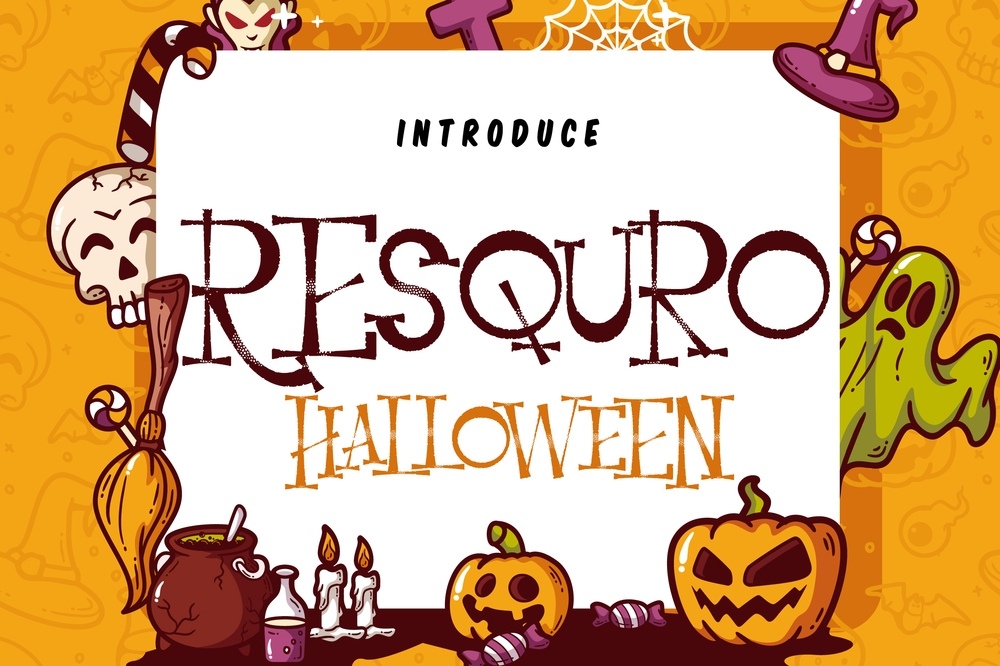
Resquro Halloween Font
This mysterious font is perfect for Halloween horror movies, dark gothic decorations, sinister Halloween parties, eerie haunted attractions, spooky thriller posters, macabre Halloween branding, ominous seasonal signage, frightening Halloween events, menacing horror displays, and darkly atmospheric Halloween messaging materials.
Resquro Halloween Font is exciting because it embodies the dark sophistication and chilling elegance of contemporary horror through its menacingly crafted letterforms that capture the refined terror and psychological intensity of modern Halloween celebrations. The font features sharp, angular characters with gothic influences and sinister details that evoke the atmospheric dread of premium horror experiences, incorporating jagged edges and ominous flourishes that create typography as unsettling and compelling as the best psychological thrillers. Each letter showcases the calculated precision and deliberate menace that distinguishes sophisticated horror from simple scares, with razor-sharp proportions and darkly elegant accents that transform ordinary text into instruments of controlled terror. The design perfectly captures the evolution of Halloween from childish fun to sophisticated fright, creating typography that appeals to mature audiences seeking genuinely spine-chilling experiences that combine artistry with authentic fear.
The Resquro Halloween Font family includes horror-inspired variations: Regular, Bold, Light, Gothic, and Sinister versions. The collection features special dark elements including blade-like accents, shadow effects, gothic flourishes, and menacing ornaments. Additional components include ominous borders, dark frames, sinister decorations, and threatening ornamental designs that enhance the font's Halloween horror appeal and create cohesive darkly sophisticated themes.
Horror filmmakers and sophisticated Halloween creators will find Resquro Halloween Font Free Download to be an invaluable resource for creating genuinely frightening Halloween communications that transcend childish scares to deliver authentic psychological terror and atmospheric dread. This menacingly crafted font transforms ordinary Halloween messaging into instruments of sophisticated horror that resonate with audiences seeking genuinely spine-chilling experiences that combine artistic excellence with authentic fear.
The typeface includes comprehensive character support with horror styling that maintains excellent readability while conveying the dark sophistication and menacing atmosphere of contemporary Halloween horror. The font's sinister design ensures chilling results across both professional horror applications and sophisticated Halloween celebrations.
Perfect for horror productions, haunted attractions, sophisticated Halloween events, and darkly atmospheric seasonal marketing, this font delivers genuinely frightening visual impact that communicates authentic terror, dark sophistication, and the spine-chilling atmosphere that makes modern Halloween horror such a compelling and artistically sophisticated form of entertainment.